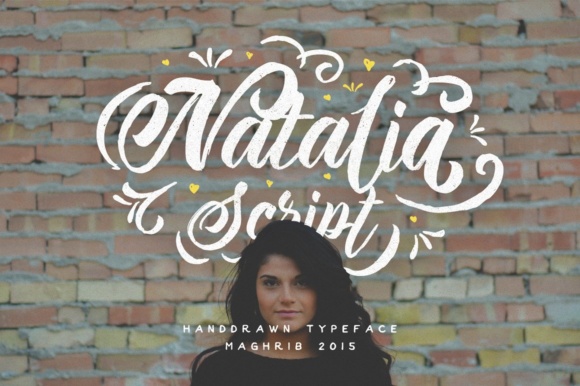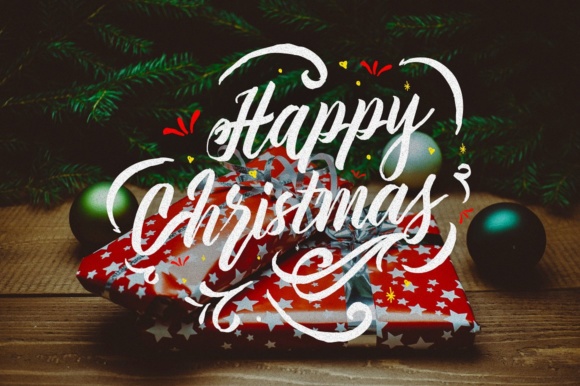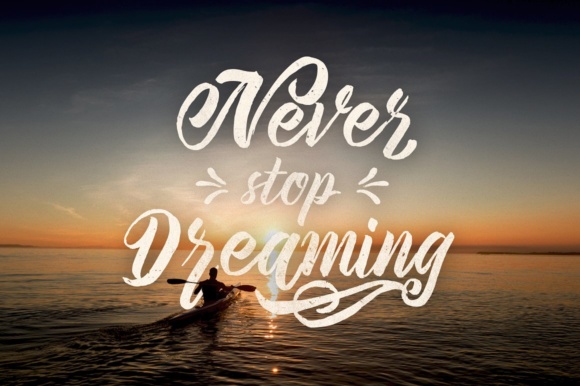
HomeScript FontsNatalia Script Font Script Fonts Natalia Script Font FacebookXPinterestWhatsApp Natalia Script Font Poster 2 Natalia Script Font Poster 3 Natalia Script Font Poster 4 About Natalia Script Font The Natalia is a hand painted typeface. It was designed to help you create a stunning hand lettered design. DOWNLOAD NOW People also explored Anxious Font Pristyne Font Manda Script Font Astalo Bros Font Hoam Font Lovestorys Font Cayuse Display Font + Word Logos Font Jaqartall Font Fasten Font 263 0 TagsNatalia Script Font Previous articleDelight FontNext articleMira Font LEAVE A REPLY Cancel reply Comment: Please enter your comment! Name:* Please enter your name here Email:* You have entered an incorrect email address! Please enter your email address here Website: Save my name, email, and website in this browser for the next time I comment. Personal Use Free Burnstown Dam Personal Use Free Read more about this font Sabina Illusion Personal Use Free Read more about this font Oaklevin Personal Use Free Read more about this font Dandelions Bloom Personal Use Free Read more about this font BLOG Best Fonts for YouTube Videos: Make Your Thumbnails Stand Out Best Fonts for YouTube Videos: Make Your Thumbnails Stand Out Choosing the right font can make a massive difference in how your YouTube videos perform.... Top 10 Handwritten Fonts That Elevate Your Designs How to Install and Use Fonts on Windows, macOS, and Web Projects Top 7 Google Fonts Alternatives for Faster and Privacy-Friendly Web Design (2025)